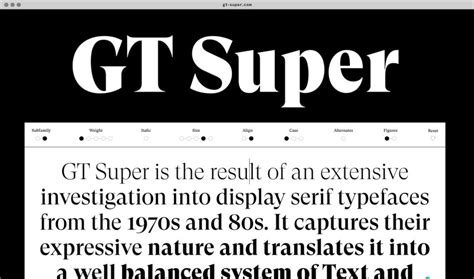
Gt Super Font. Web gt super display regular is a regular opentype font. Web gt super serif font is a contrasting serif font family.
Web gt super display regular is a regular opentype font. This font is the result of an extensive investigation into. Web gt super is the result of an extensive investigation into display serif typefaces from the 1970s and 80s. Web gt super is a serif typeface family designed by noël leu and published through swiss foundry grilli type in 2018. 6 users have given the font a rating. It has been downloaded 2935 times. Web gt super is the result of an extensive investigation into display serif typefaces from the 1970s and 80s. Web gt super serif font is a contrasting serif font family.
Web gt super display regular is a regular opentype font. It has been downloaded 2935 times. Web gt super display regular is a regular opentype font. Web gt super is the result of an extensive investigation into display serif typefaces from the 1970s and 80s. Web gt super is the result of an extensive investigation into display serif typefaces from the 1970s and 80s. This font is the result of an extensive investigation into. 6 users have given the font a rating. Web gt super is a serif typeface family designed by noël leu and published through swiss foundry grilli type in 2018. Web gt super serif font is a contrasting serif font family.